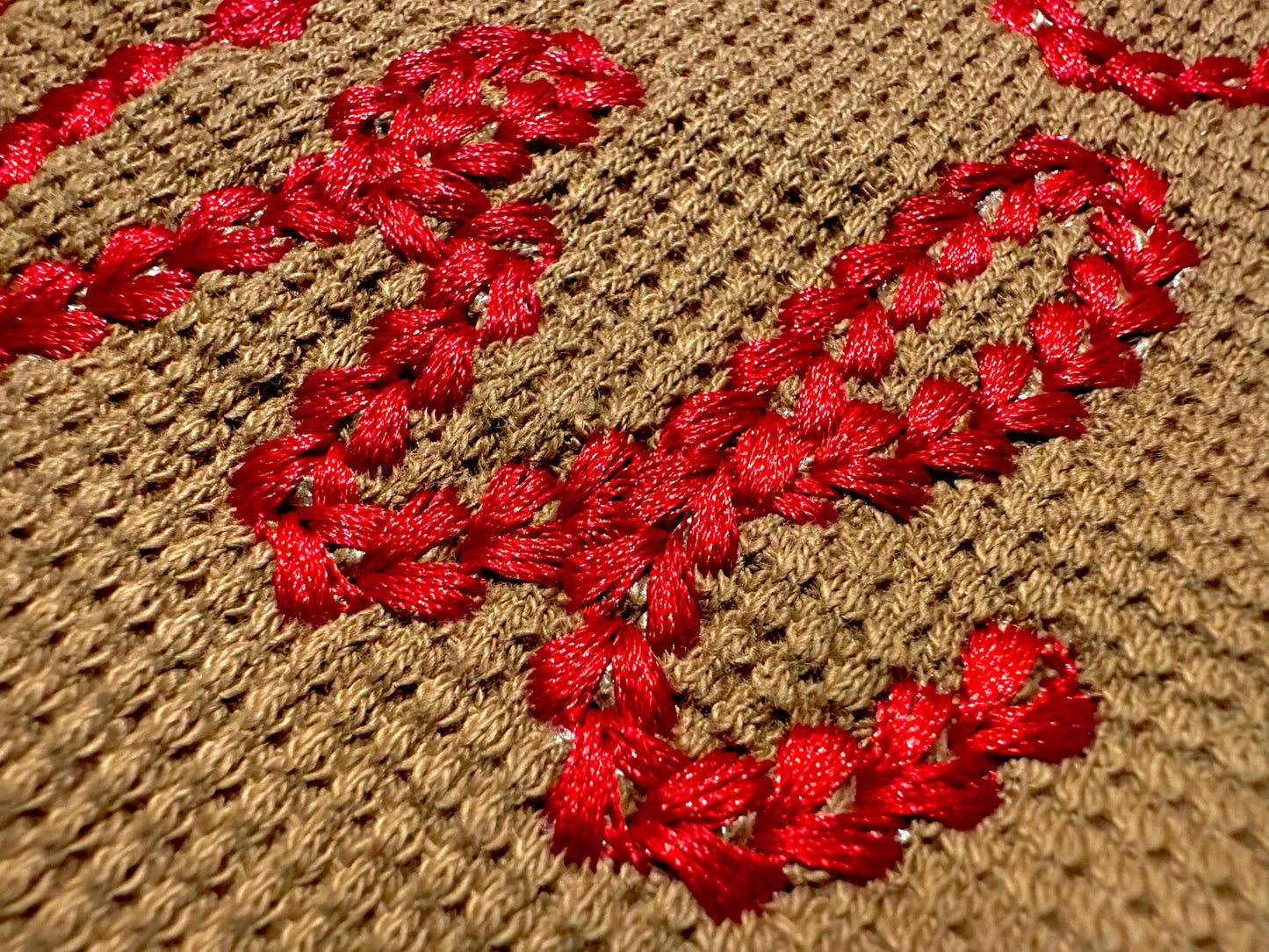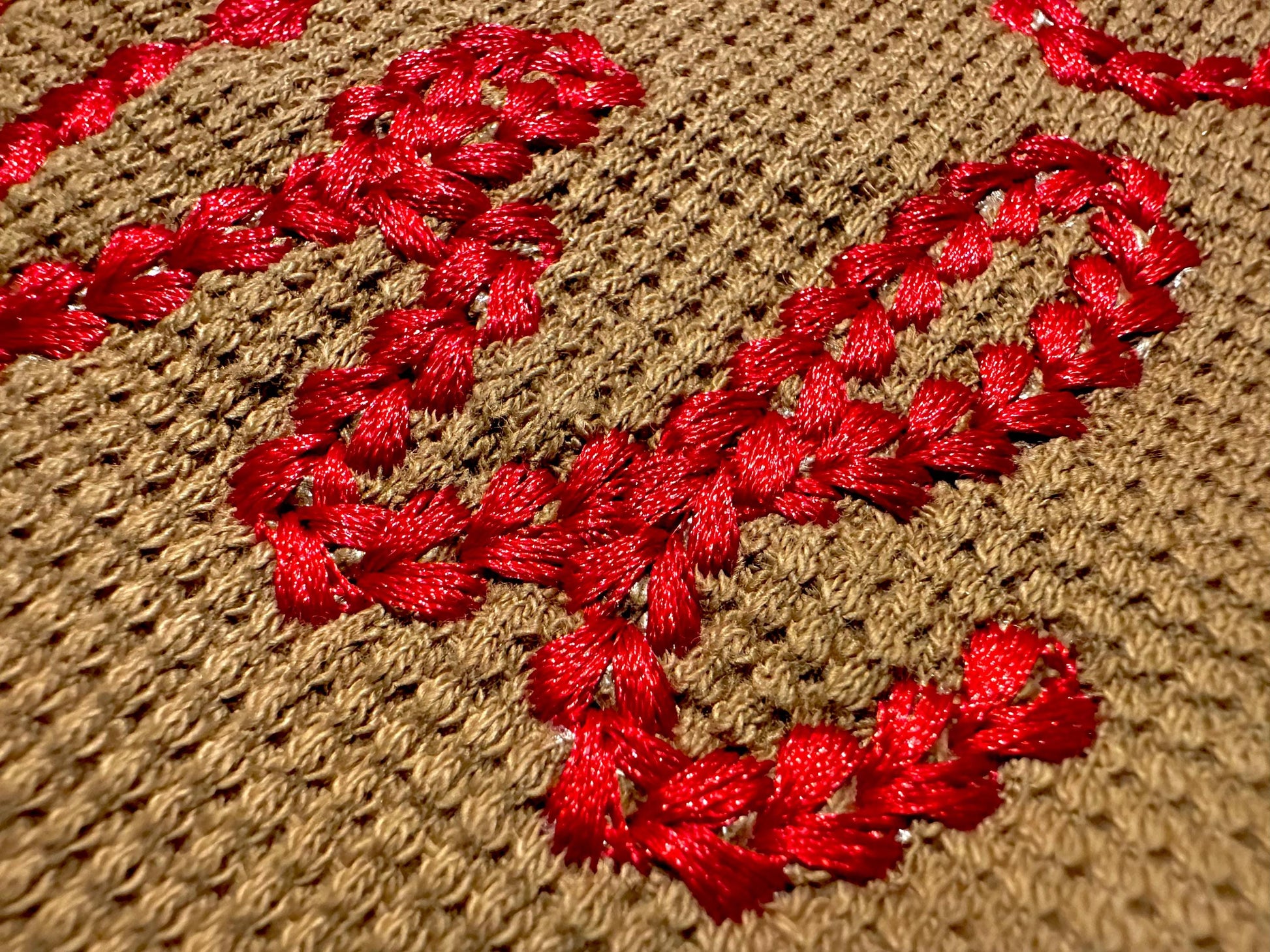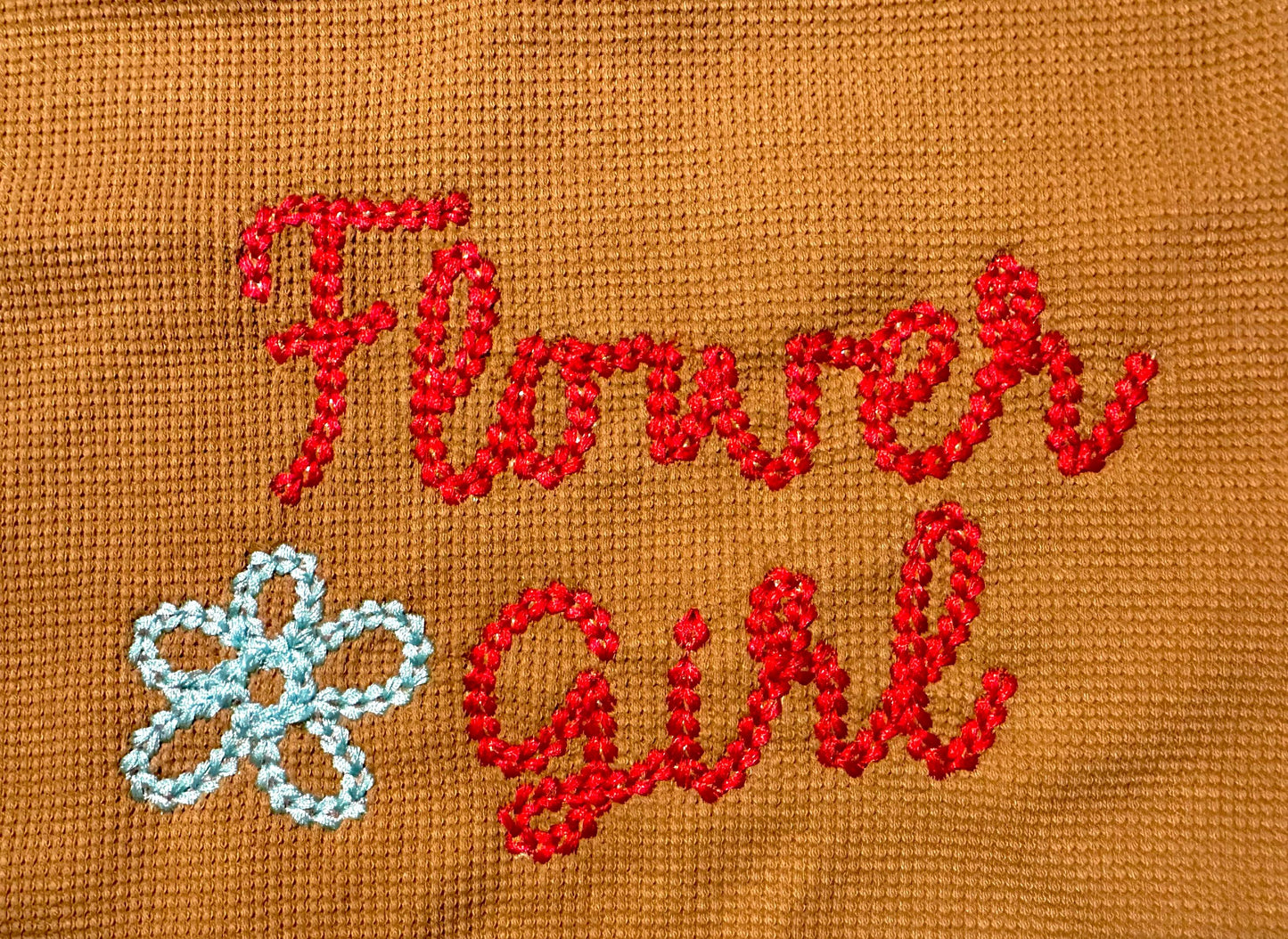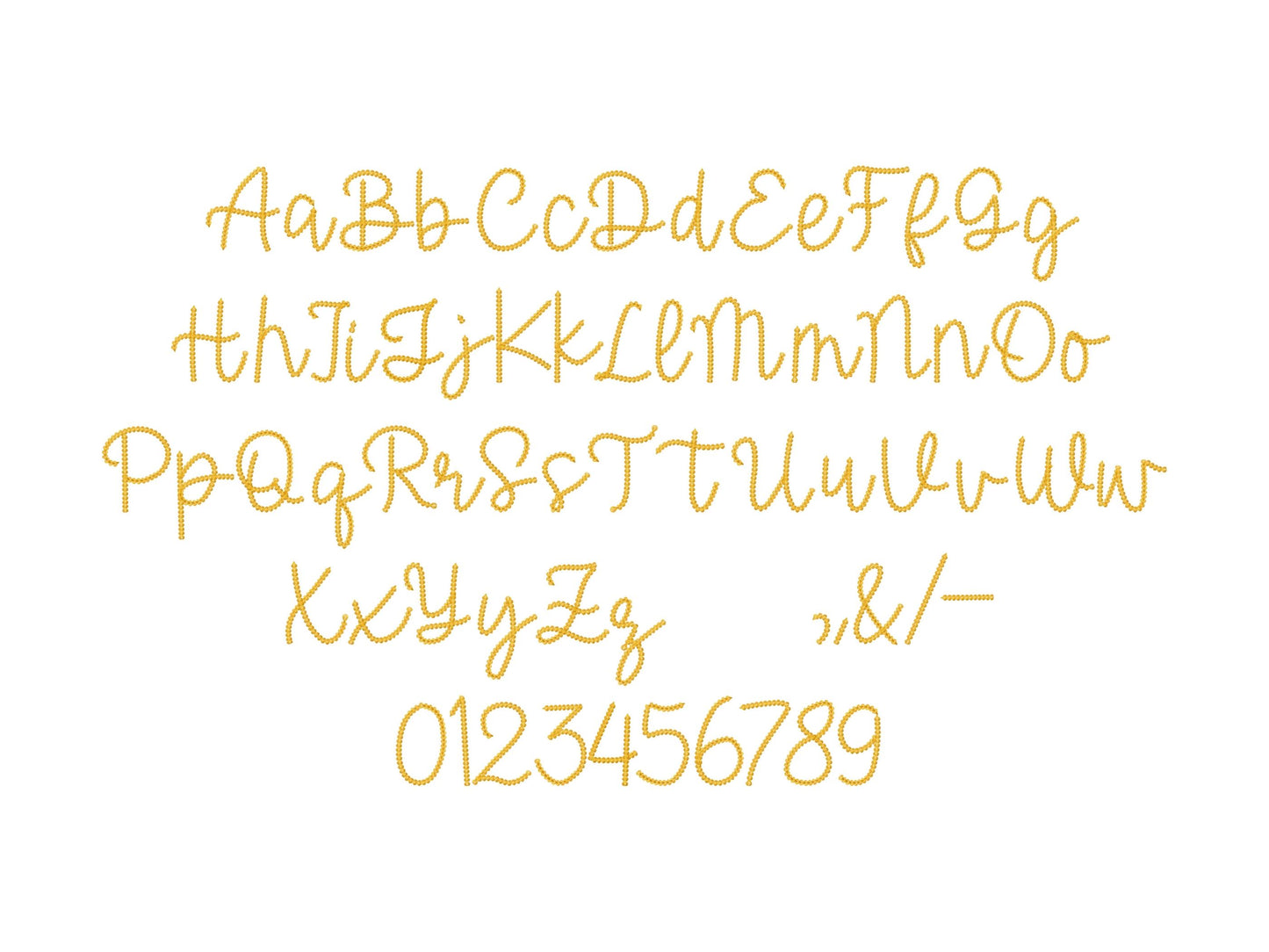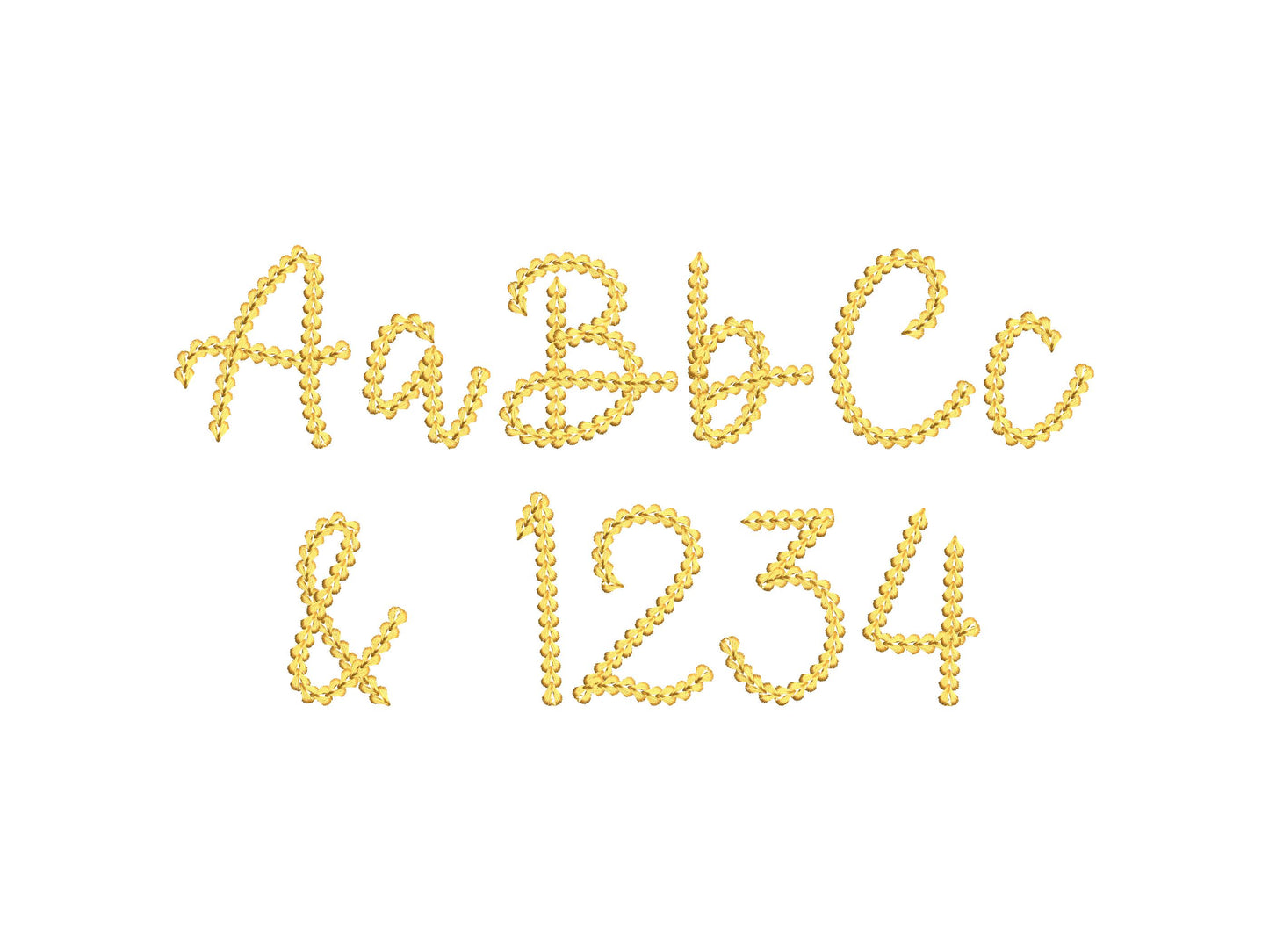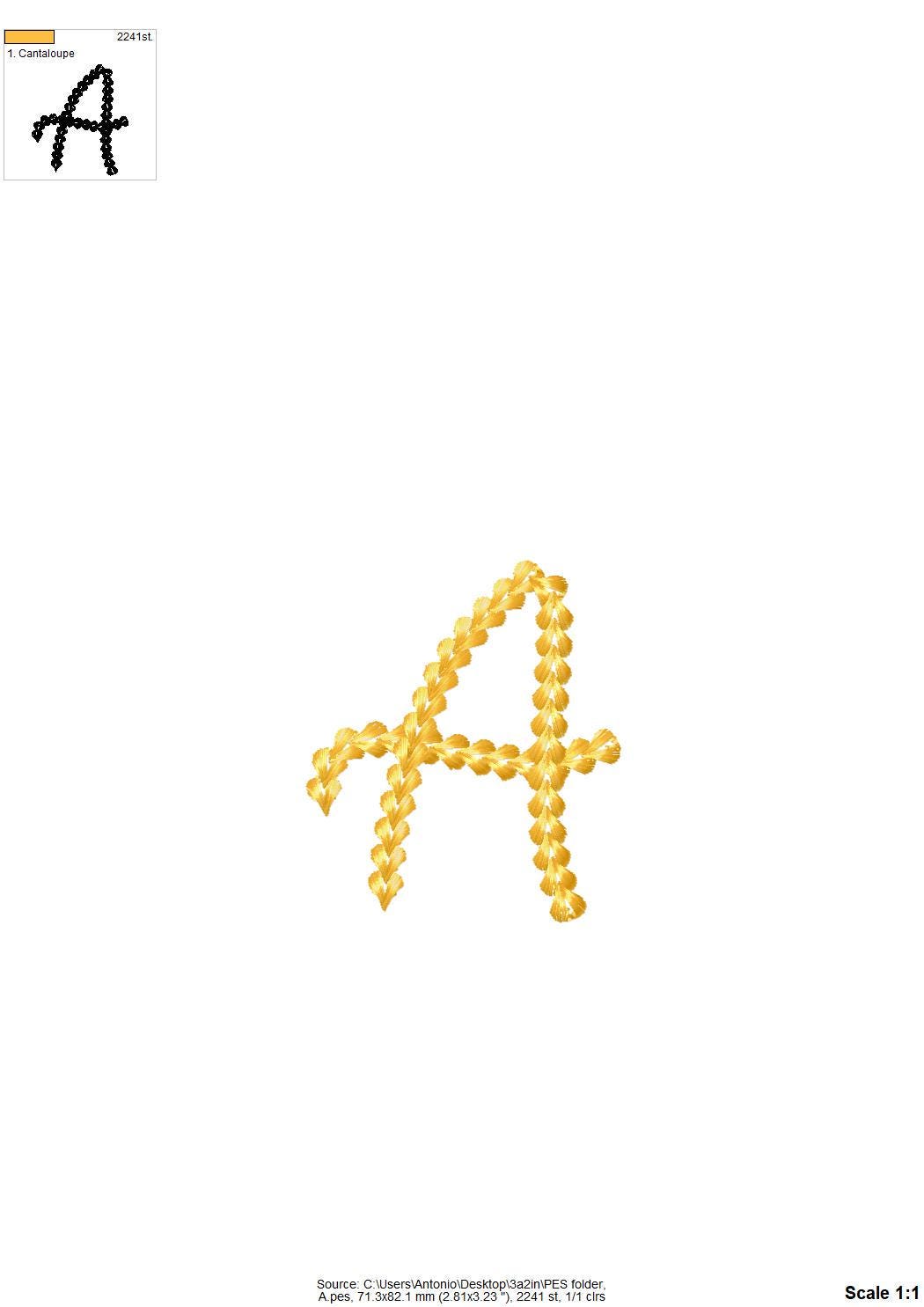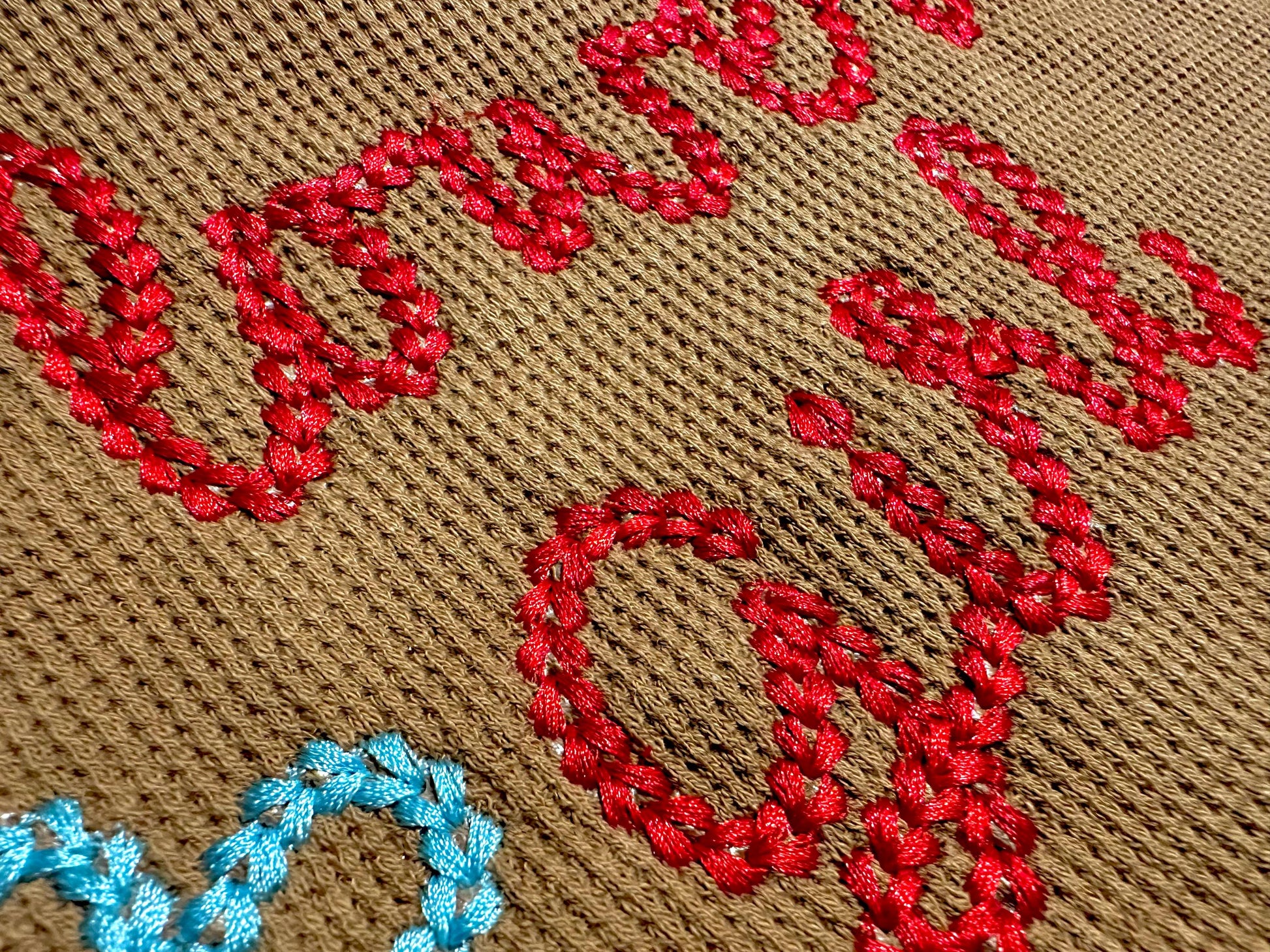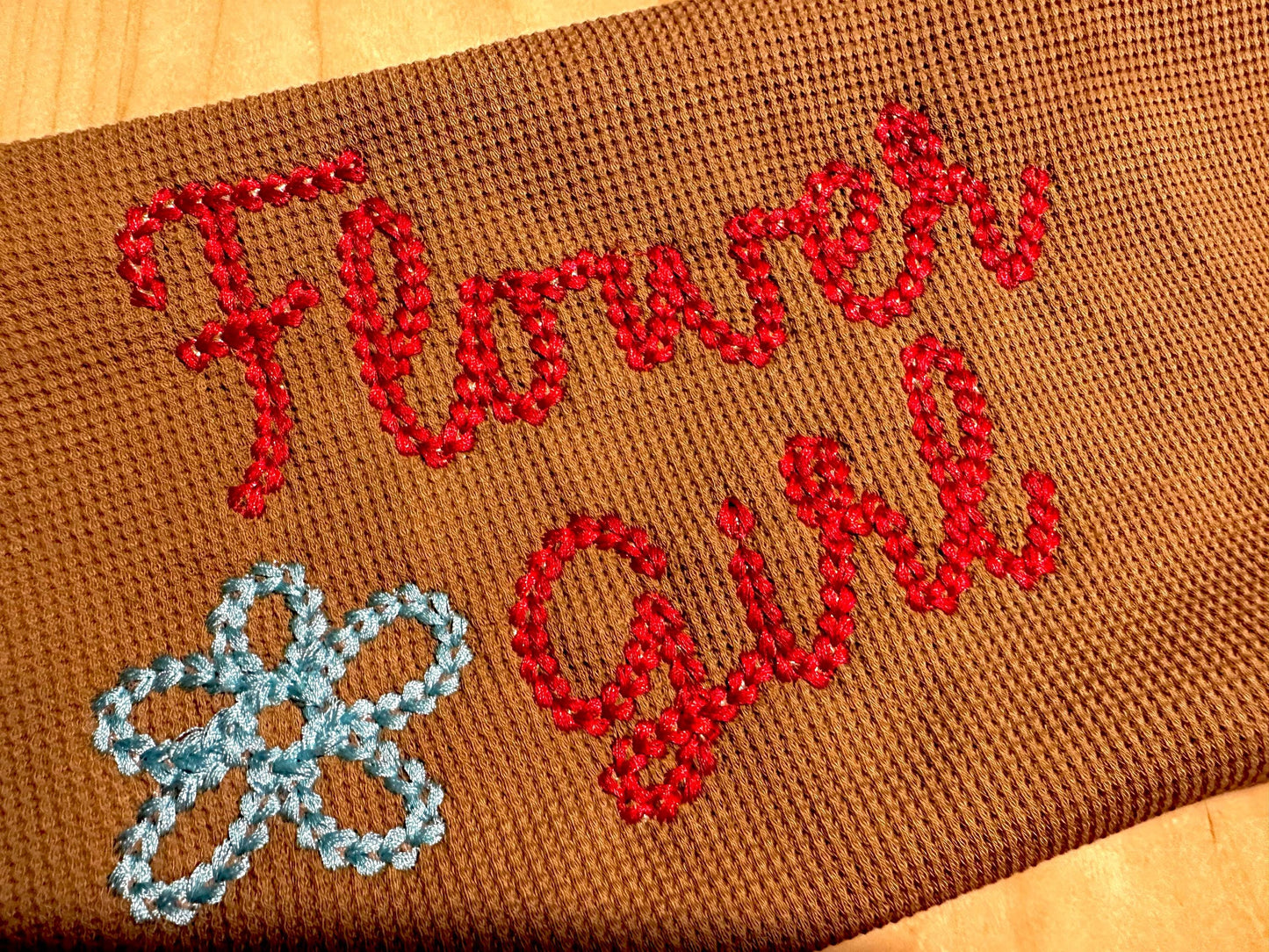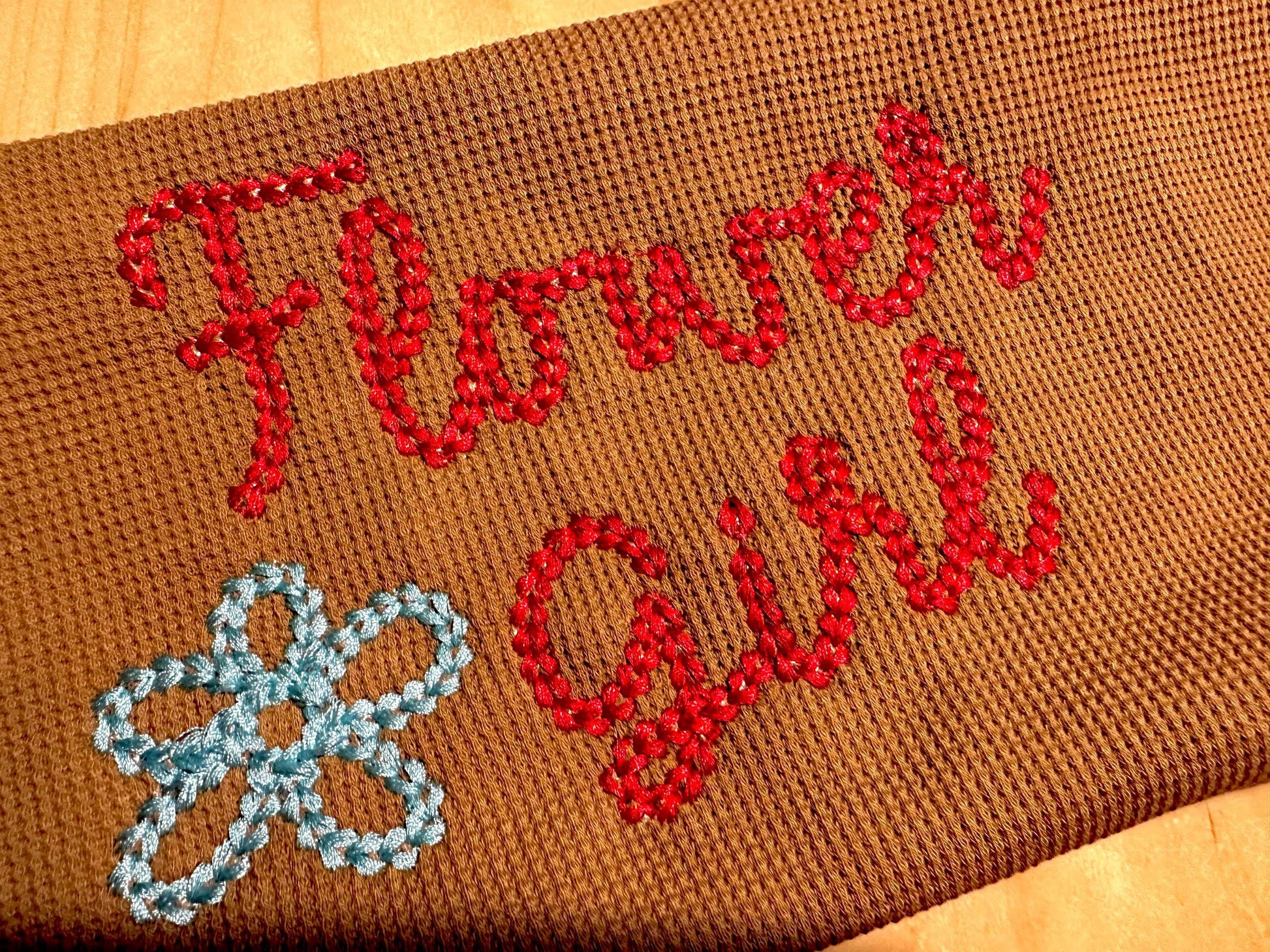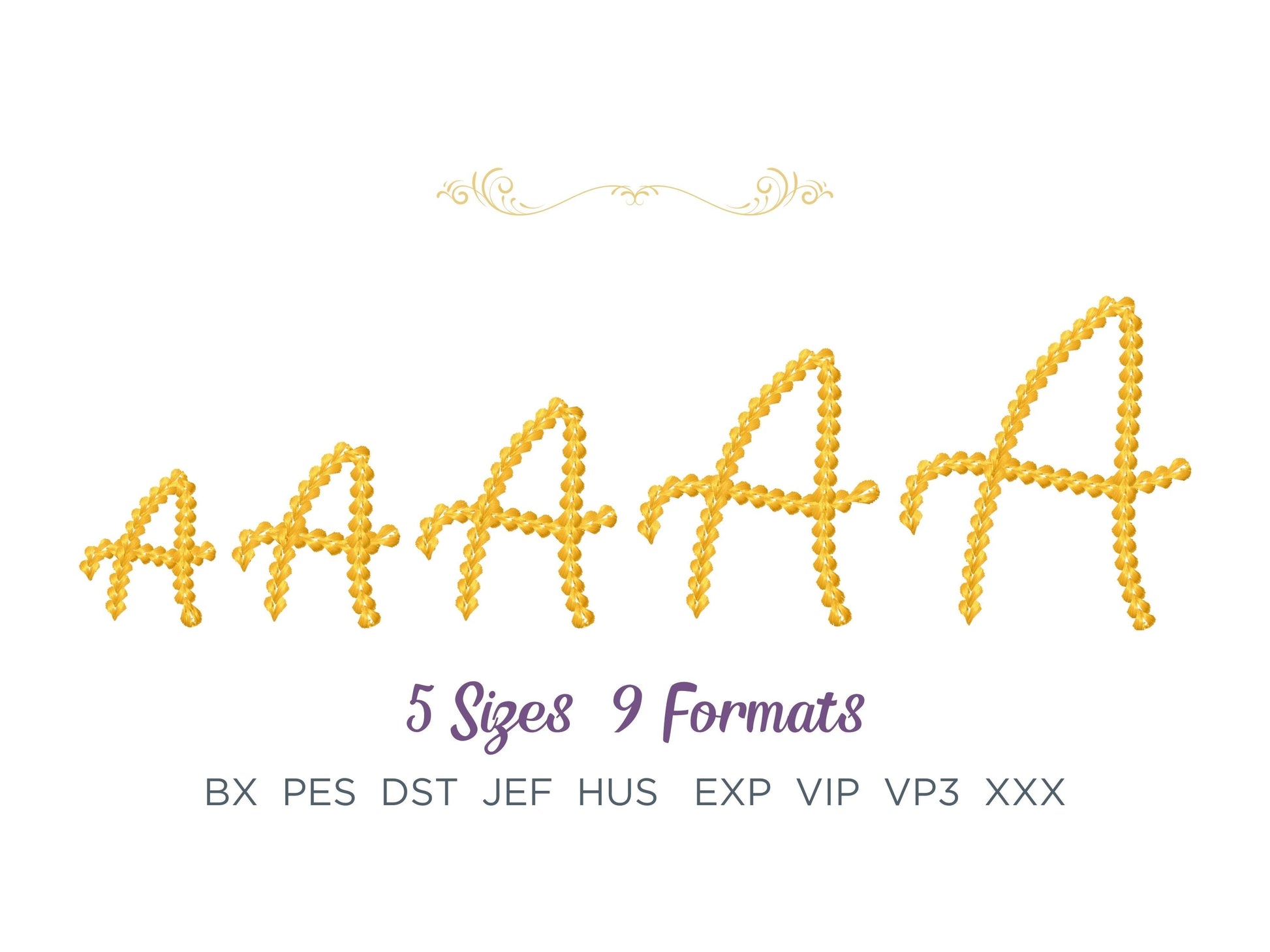
Extra Bold Chain Stitch Handwritten Font Dense Chain
Sizes (inches): 2.2", 2.6", 3.2", 3.8", 4.8"
Or click to open the linkAn extra bold chain stitch handwritten font with a hand-embroidered, knit sweater look. Great for names on sweaters, jackets and bags.
Dense chain stitch letters. Uppercase and lowercase letters, numbers and punctuation in four sizes: 2.2, 2.6, 3.8 and 4.8 inches.
- Extra bold chain stitch handwritten font
- Uppercase, lowercase, numbers 0-9, punctuation
- 4 sizes, 2.2 to 4.8 in